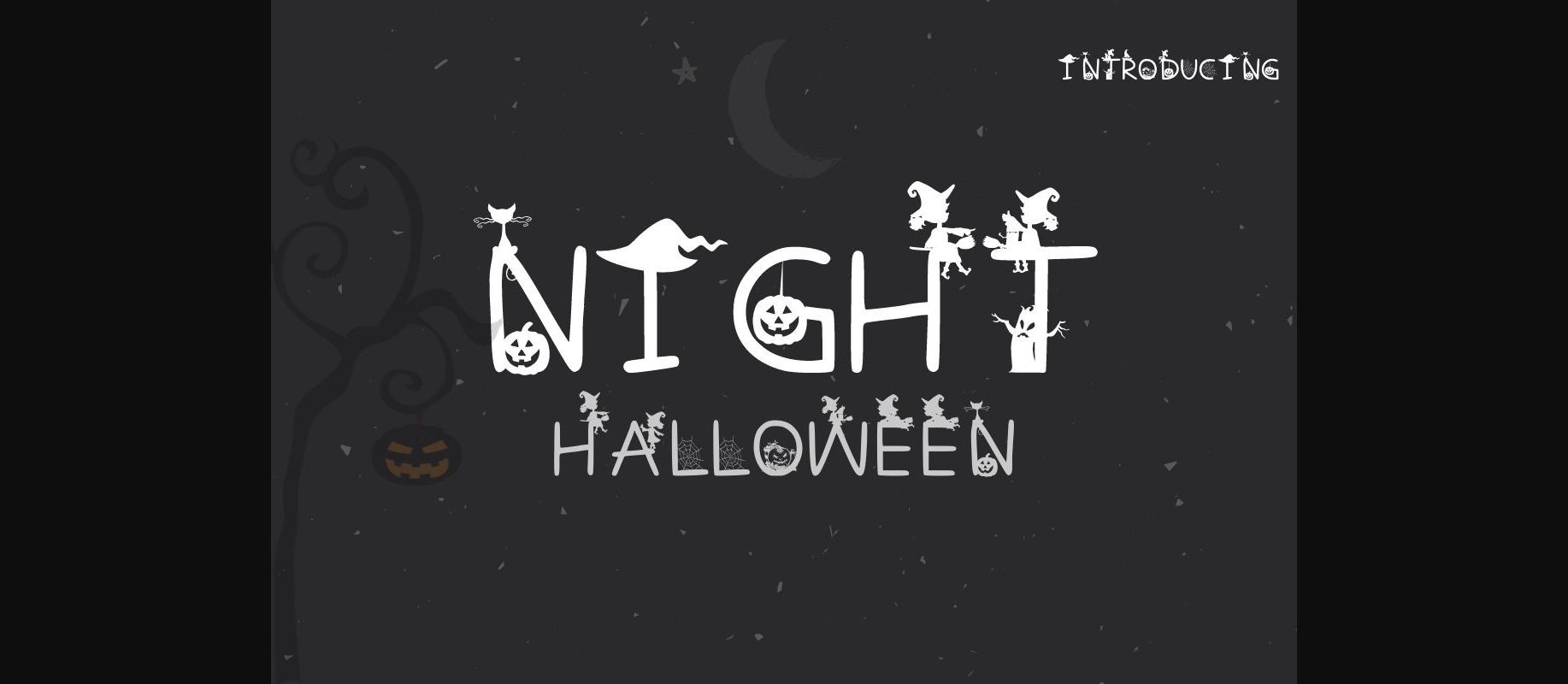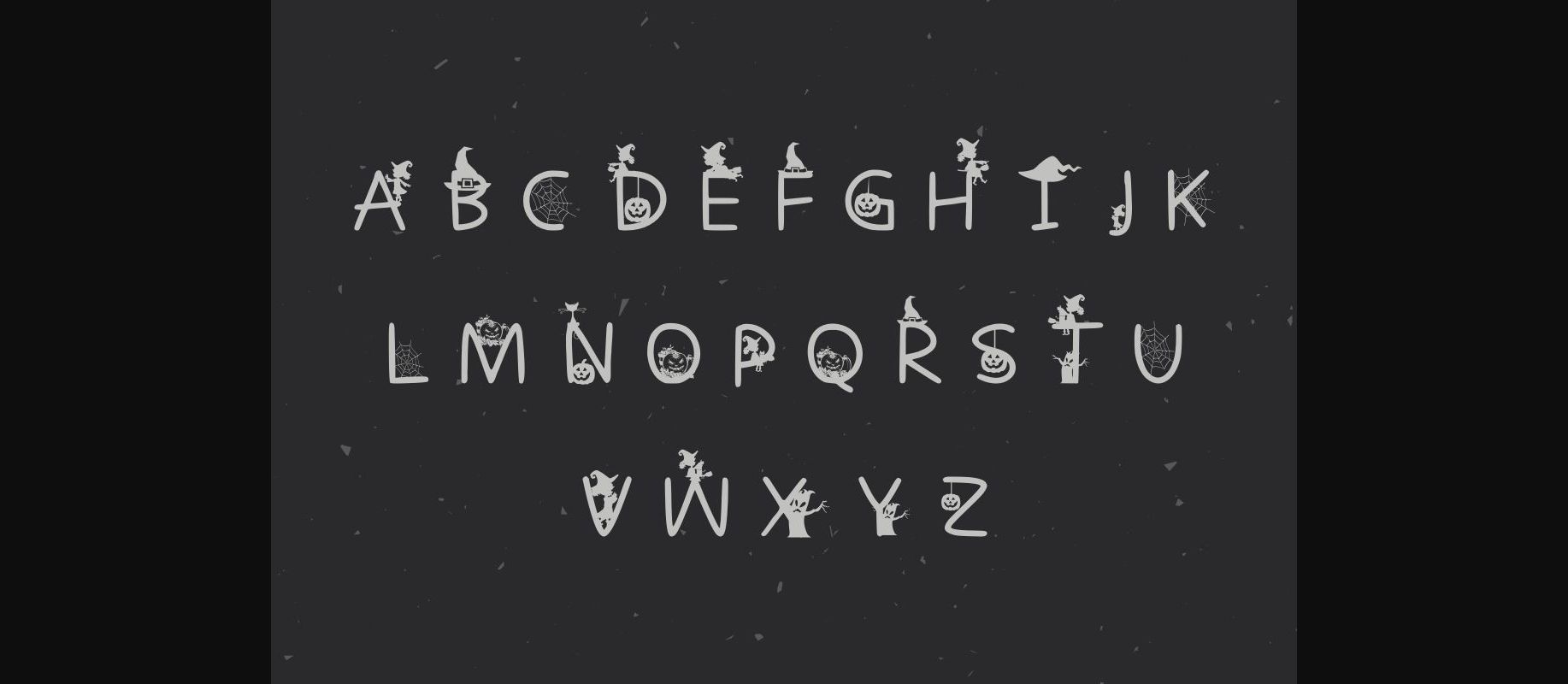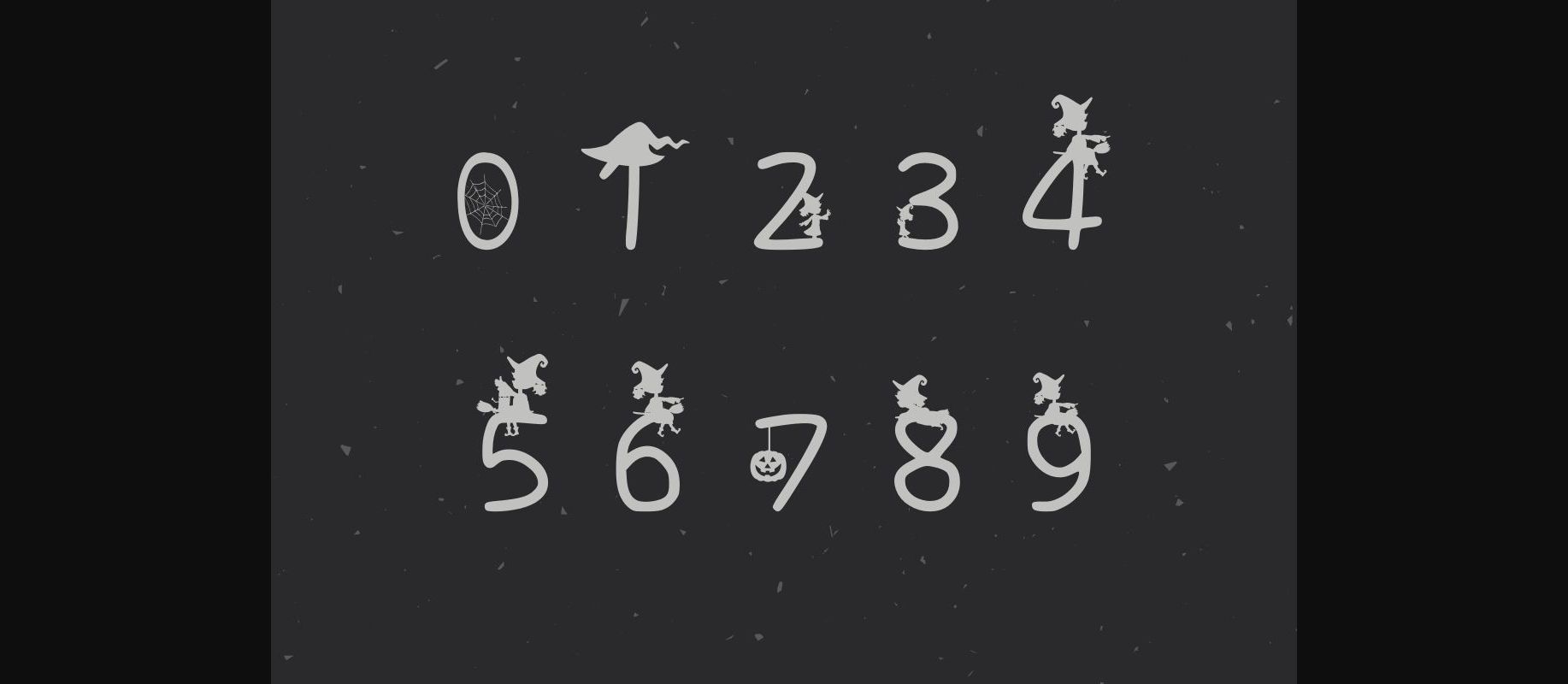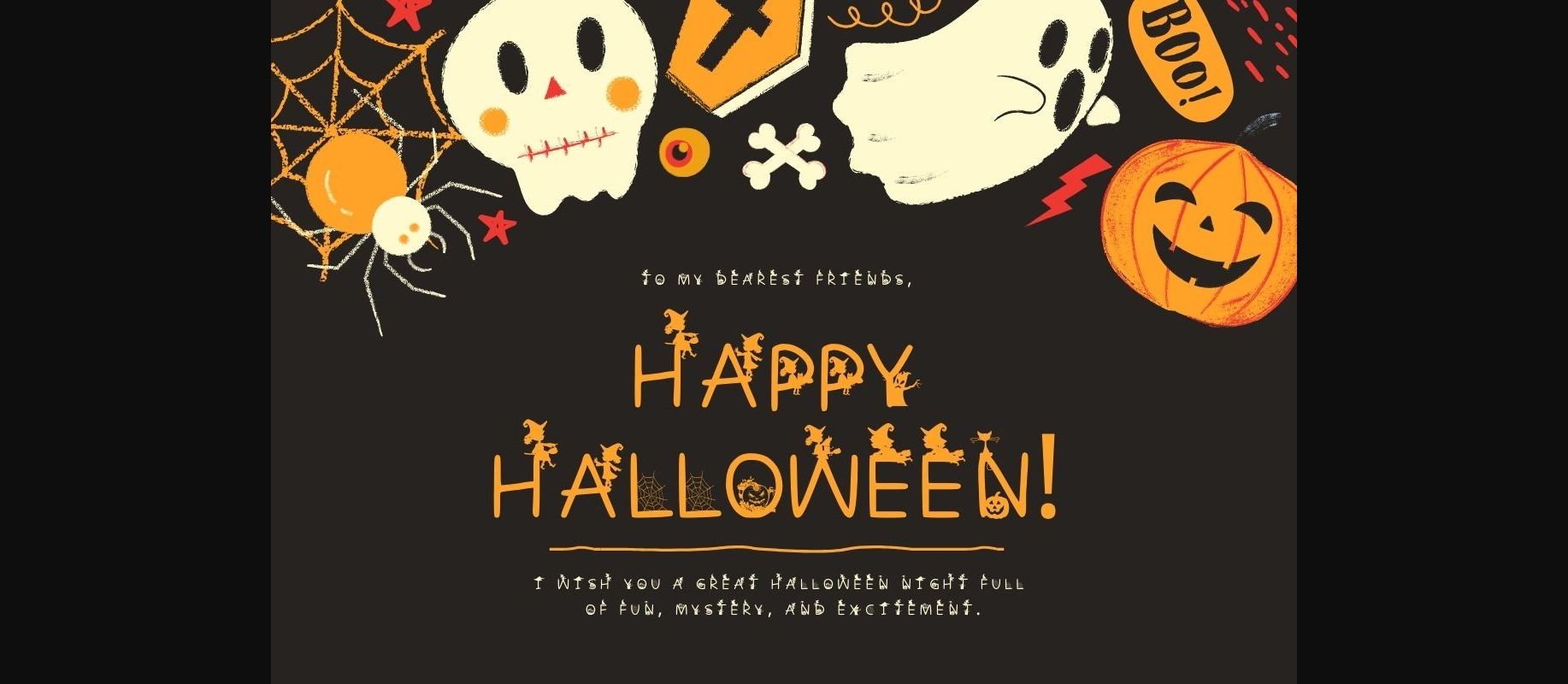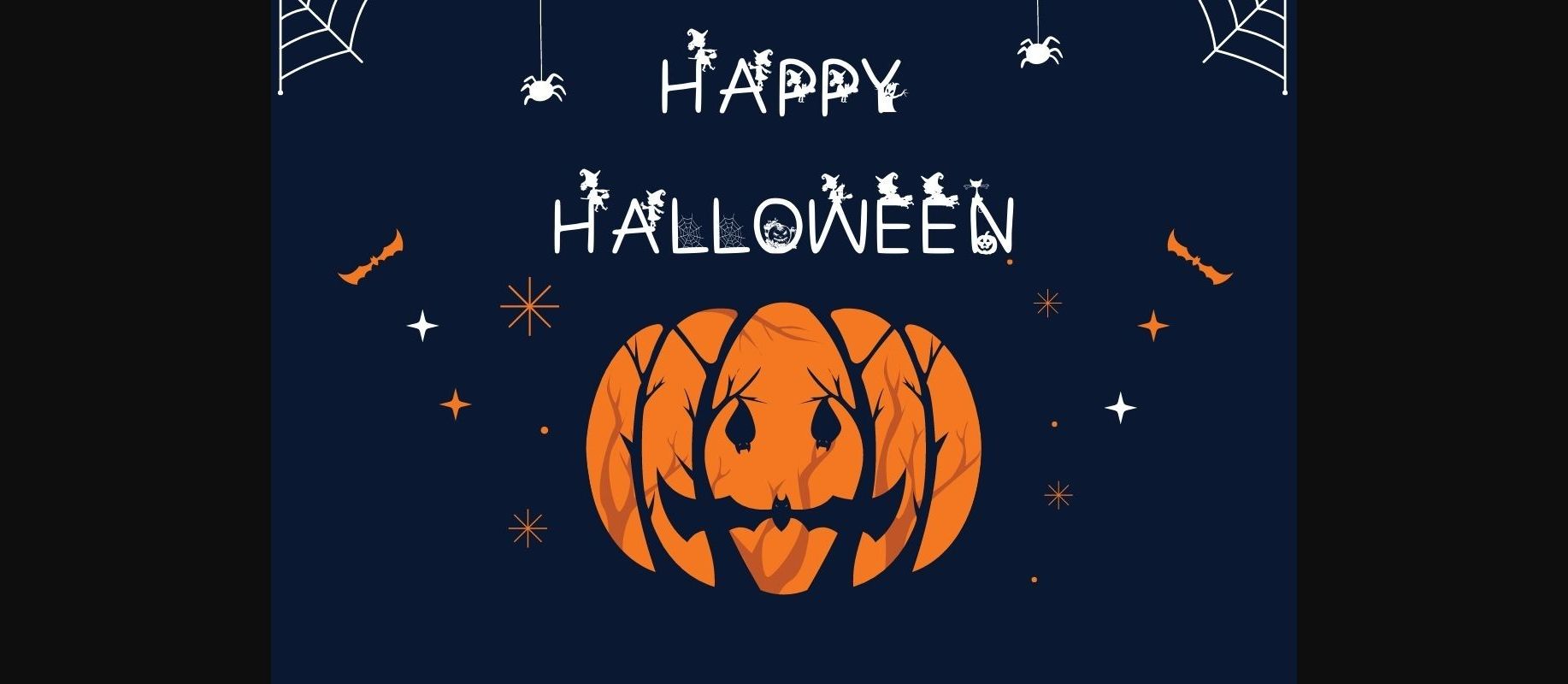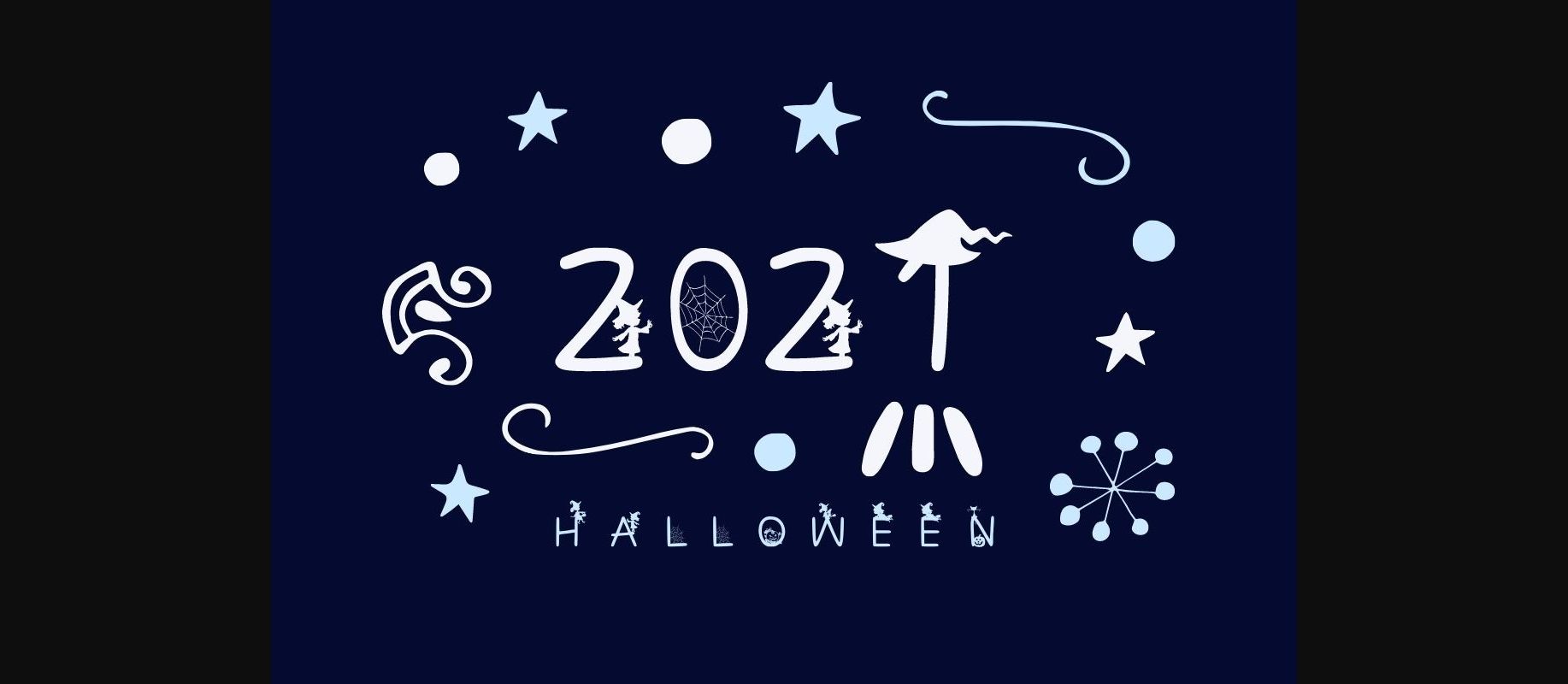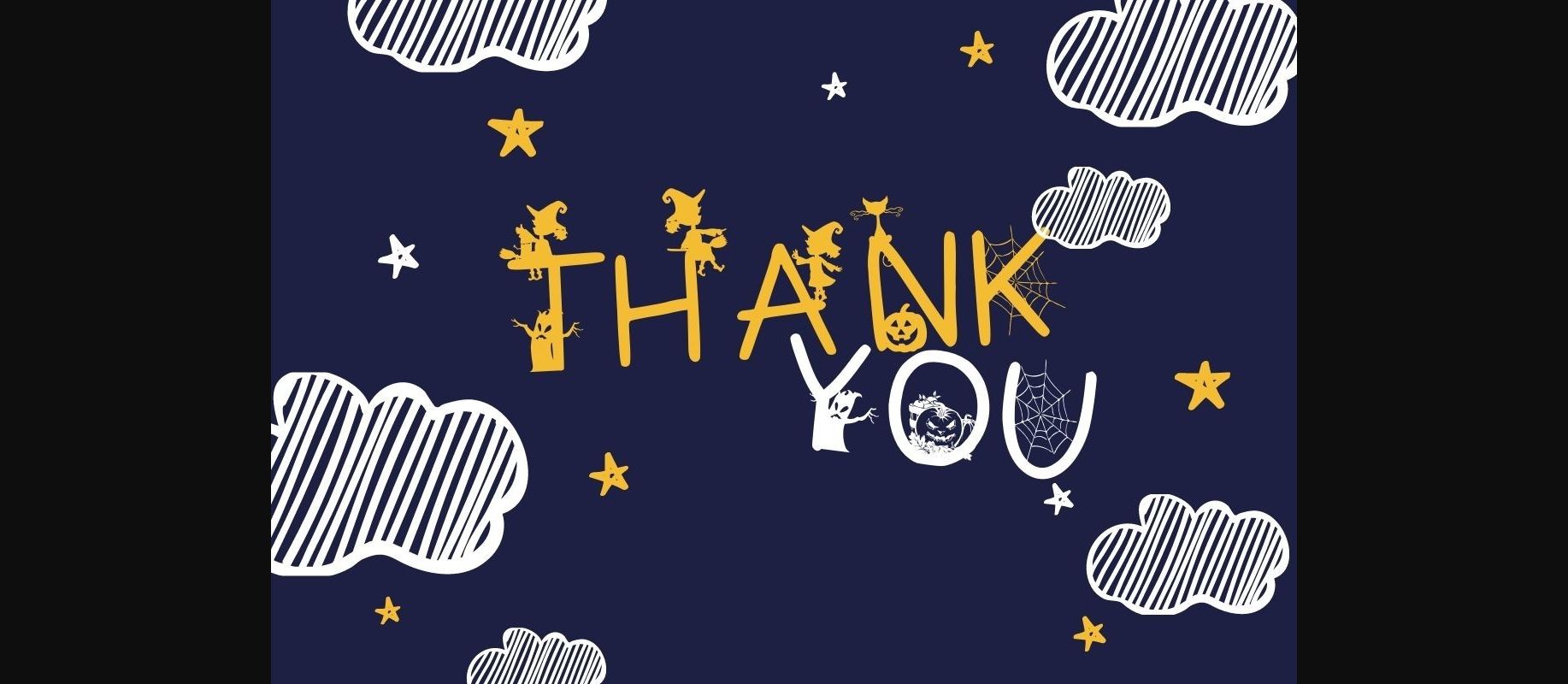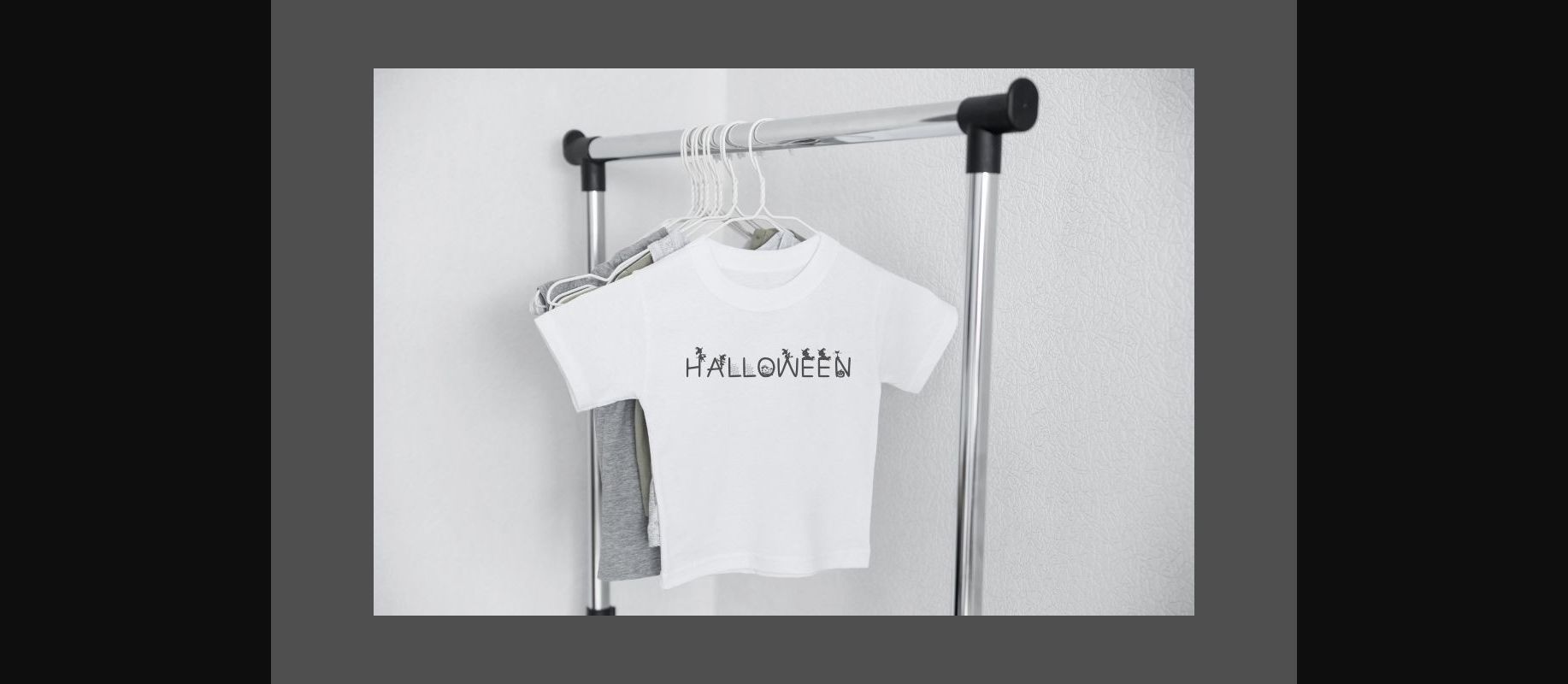
HomeDecorative FontsHalloween Night Font Decorative Fonts Halloween Night Font FacebookXPinterestWhatsApp 1 of 11 ... Halloween Night Font Poster 2... Halloween Night Font Poster 3... Halloween Night Font Poster 4... Halloween Night Font Poster 5... Halloween Night Font Poster 6... Halloween Night Font Poster 7... Halloween Night Font Poster 8... Halloween Night Font Poster 9... Halloween Night Font Poster 10... Halloween Night Font Poster 11... About Halloween Night Font Halloween Night is a bold and creepy decorative font. Add it confidently to your spooky creations and let yourself be amazed by the outcome generated. DOWNLOAD NOW People also explored Desirae Kathleen Font Operatr Font Sunday Font Mybook Again Font Dagestan Script Font The Magic Font Candle Light Font Skyline Sketch Font Camera 254 0 TagsHalloween Night Font Previous articleApple Fruit FontNext articleSkullBone Font LEAVE A REPLY Cancel reply Comment: Please enter your comment! Name:* Please enter your name here Email:* You have entered an incorrect email address! Please enter your email address here Website: Save my name, email, and website in this browser for the next time I comment. Personal Use Free Cokobi Personal Use Free Read more about this font Hello Sister Personal Use Free Read more about this font Little Pixel Personal Use Free Read more about this font Adelia Font Personal Use Free Read more about this font BLOG Elegant Wedding Invitation Fonts – Handwritten & Script Fonts Elegant Wedding Invitation Fonts Your wedding day is one of the most important moments of your life, and every detail matters—including your invitation design. Our... Where to Buy American Fonts Online in 2024 Modern Sans-Serif Fonts That Brands Love in 2025 Best Fonts for T-Shirt Design – Top 2025 Picks